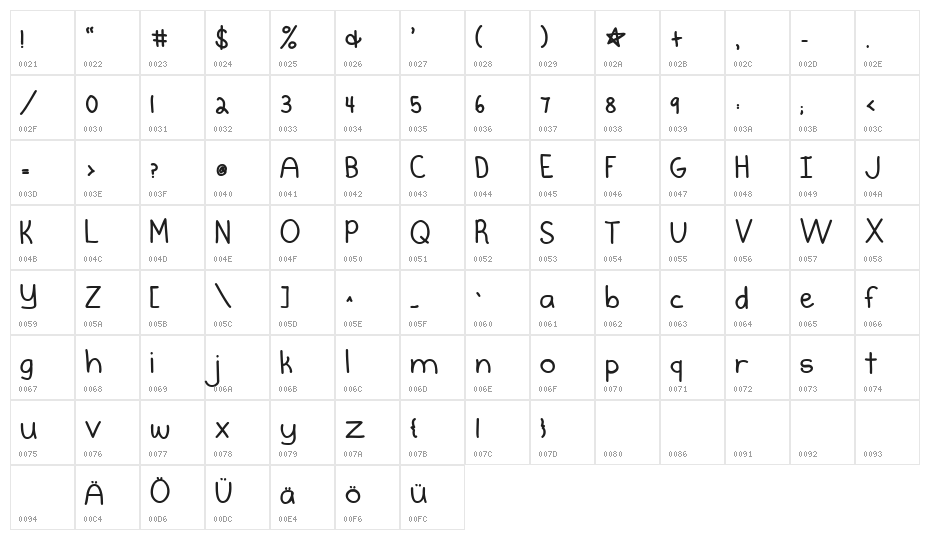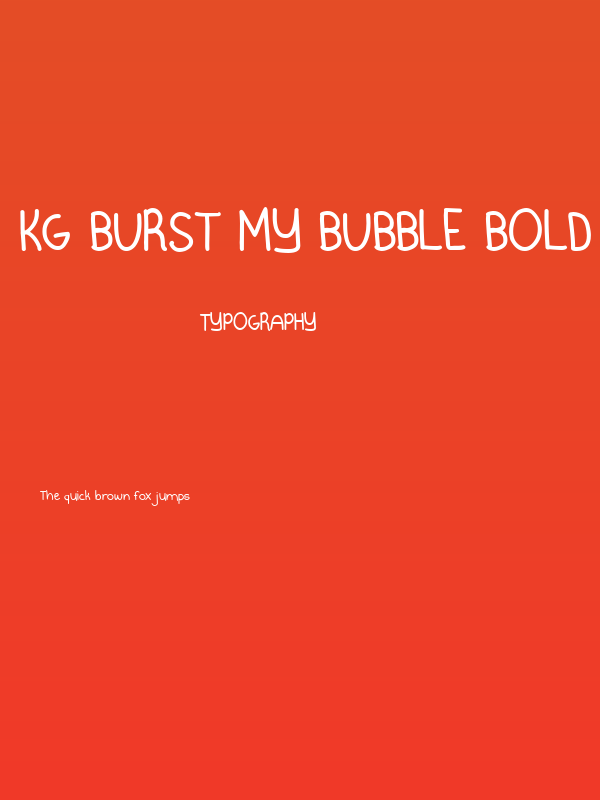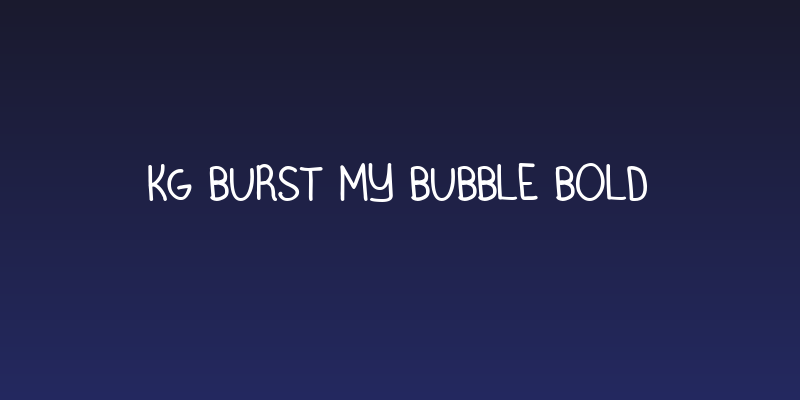
KG Burst My Bubble Bold Font
KG Burst My Bubble Bold Description
This playful and whimsical font features rounded, bubbly characters that exude a sense of fun and creativity. The letters are slightly irregular, giving them a hand-drawn appearance that adds to their charm. The uppercase and lowercase letters maintain a consistent style, with smooth curves and a friendly demeanor. Numbers and special characters are designed with the same playful aesthetic, making this font versatile for various creative projects. Its bold weight ensures visibility and impact, while the character spacing is normal, allowing for easy readability.
| Proposed Projects | Ideal for children's books, playful branding, greeting cards, and creative posters. |